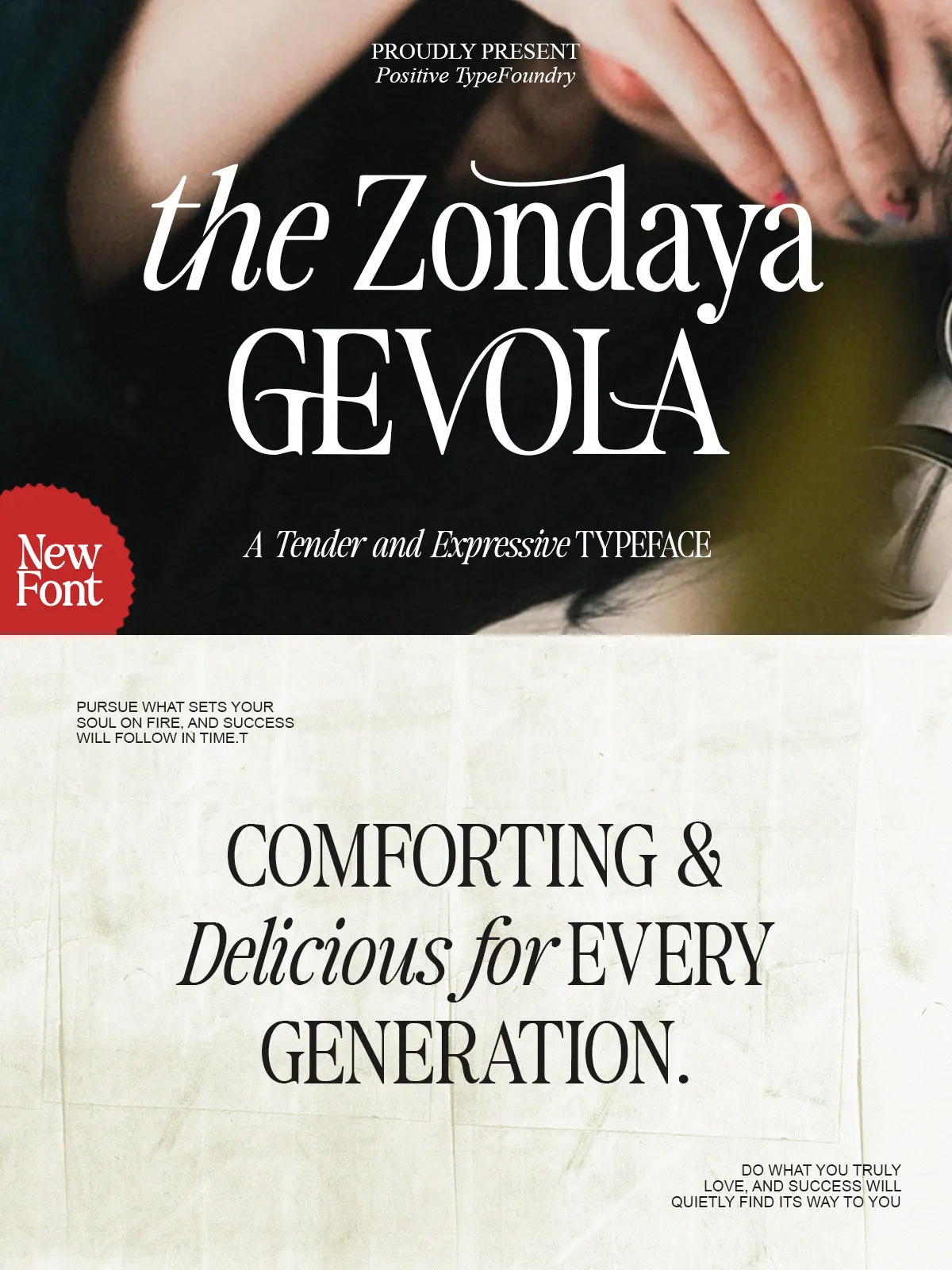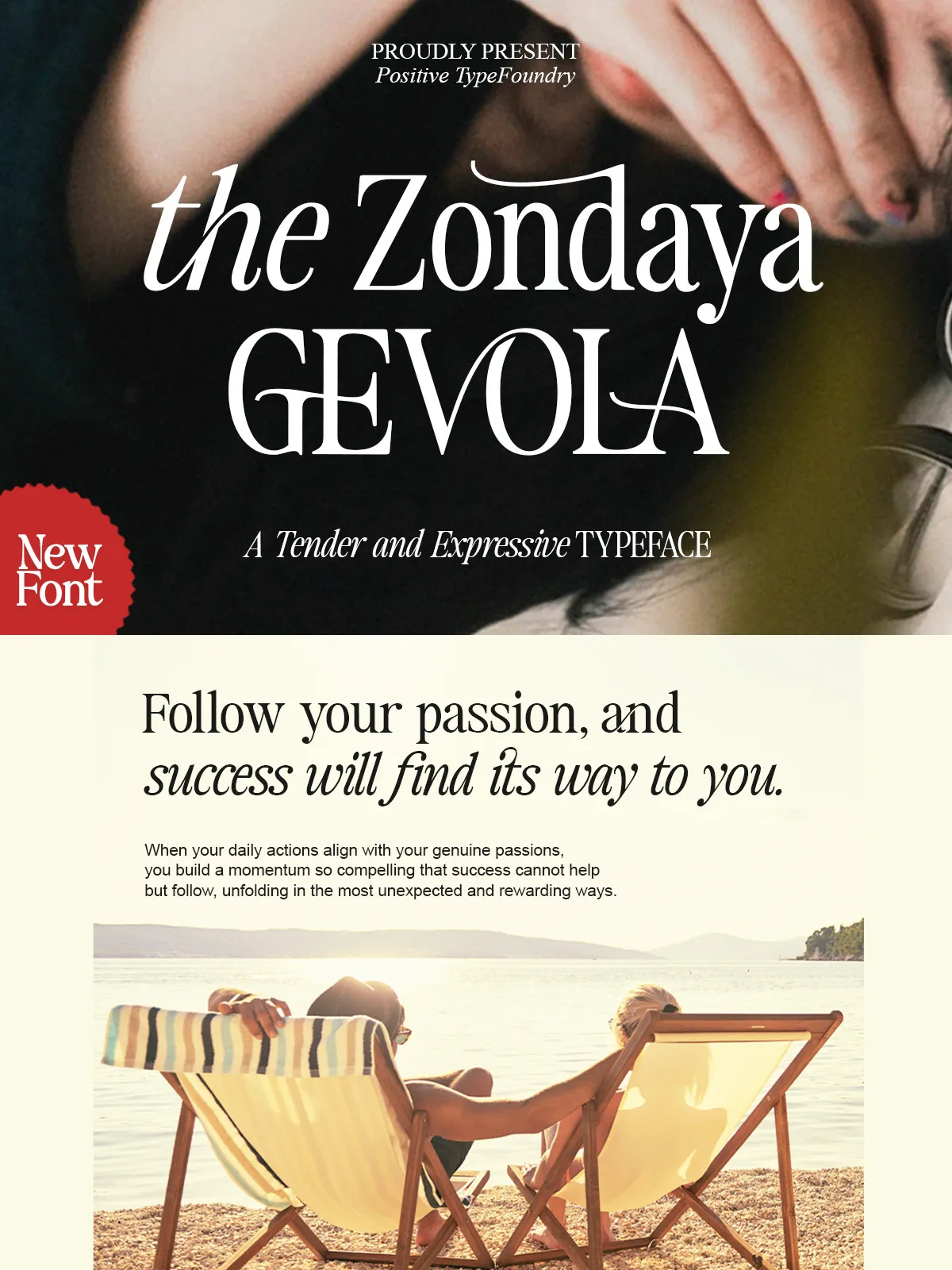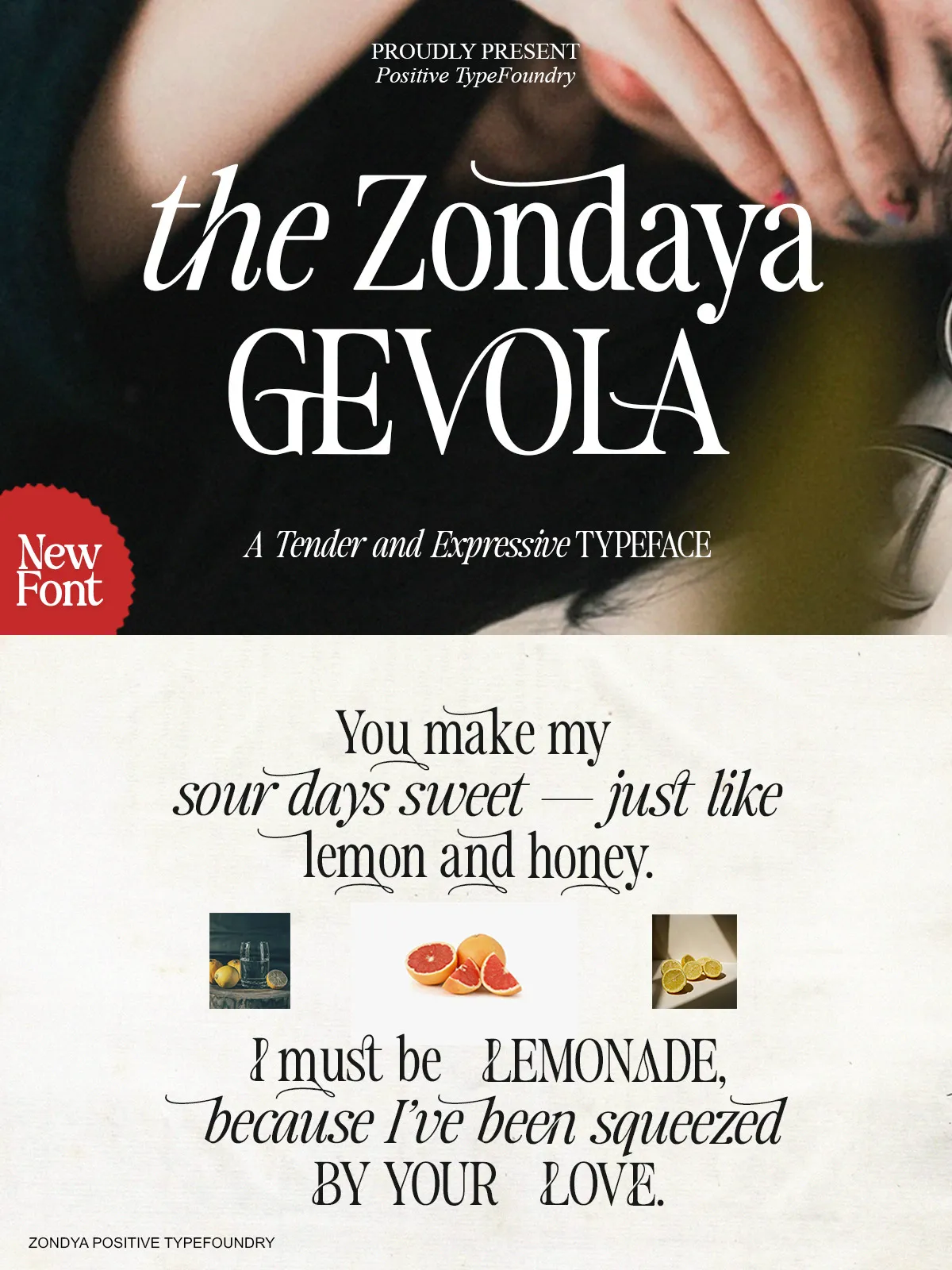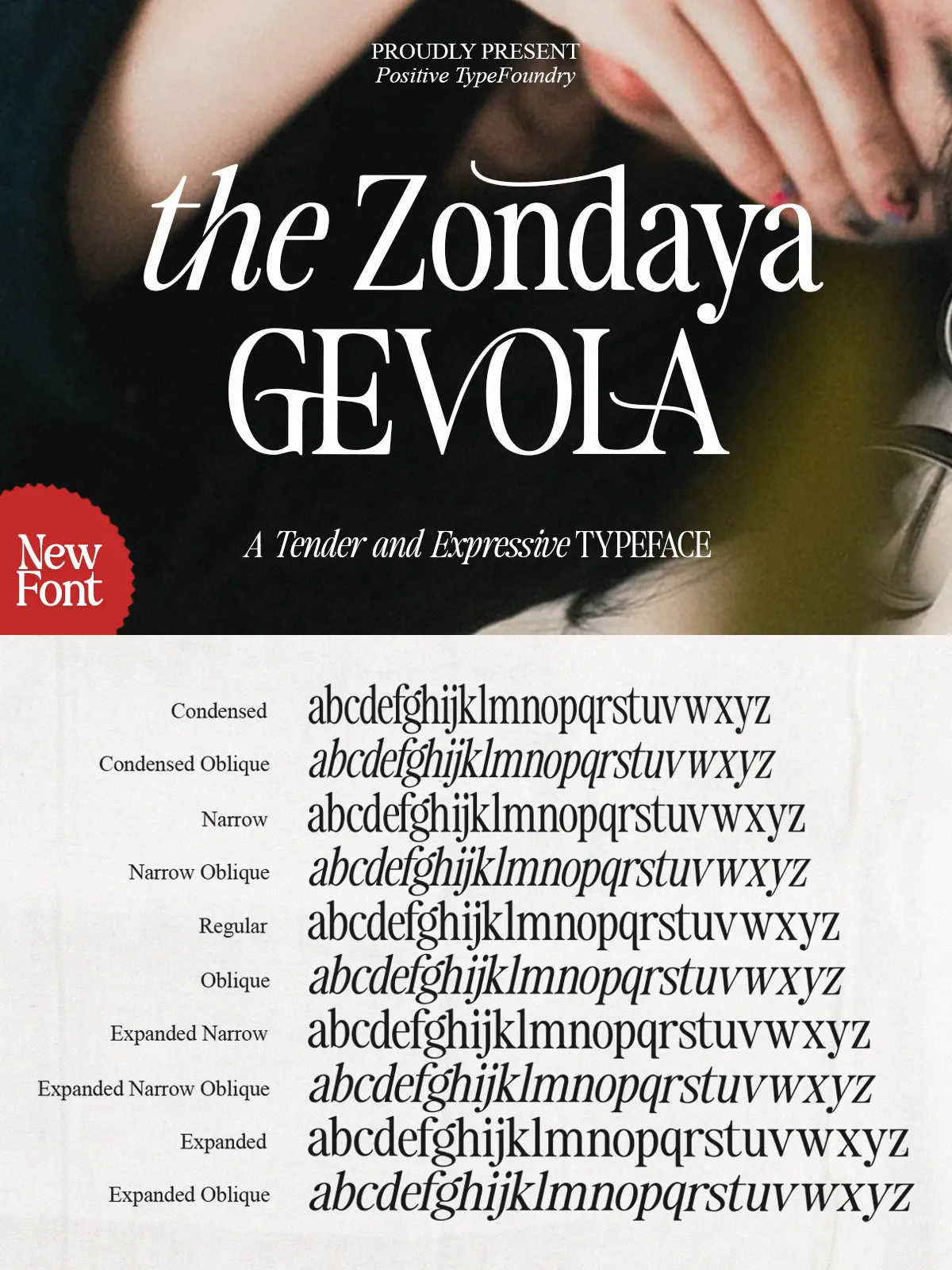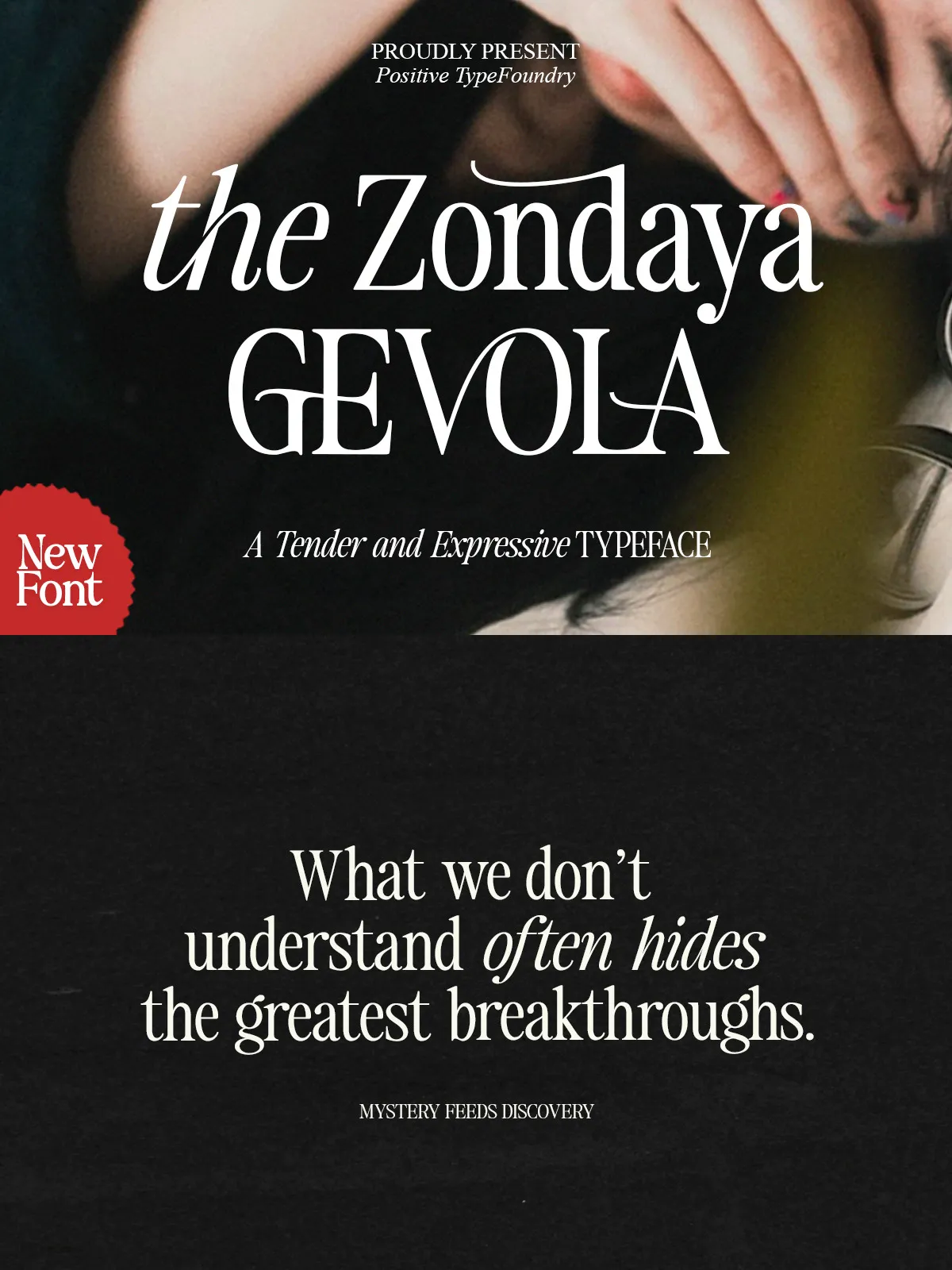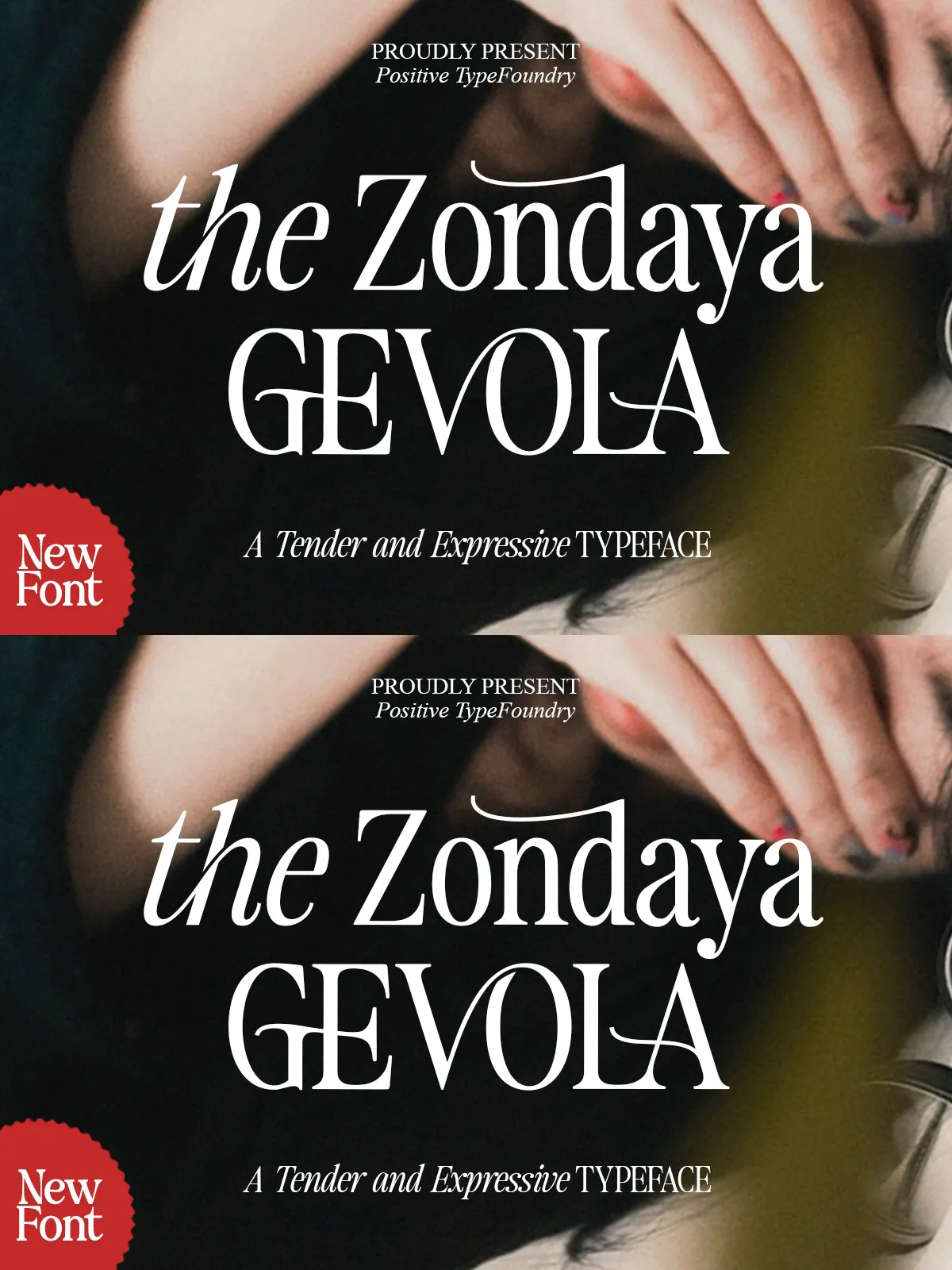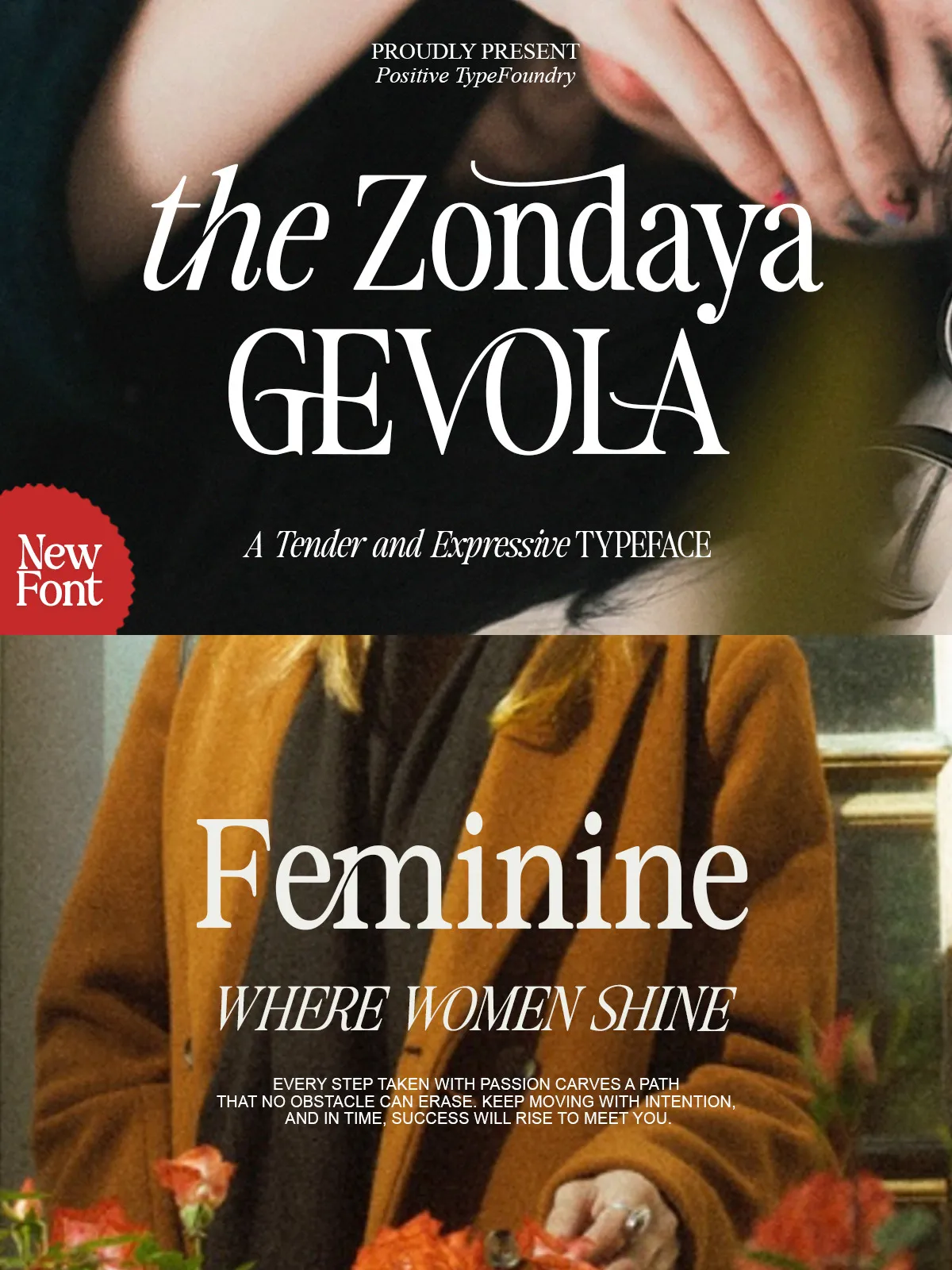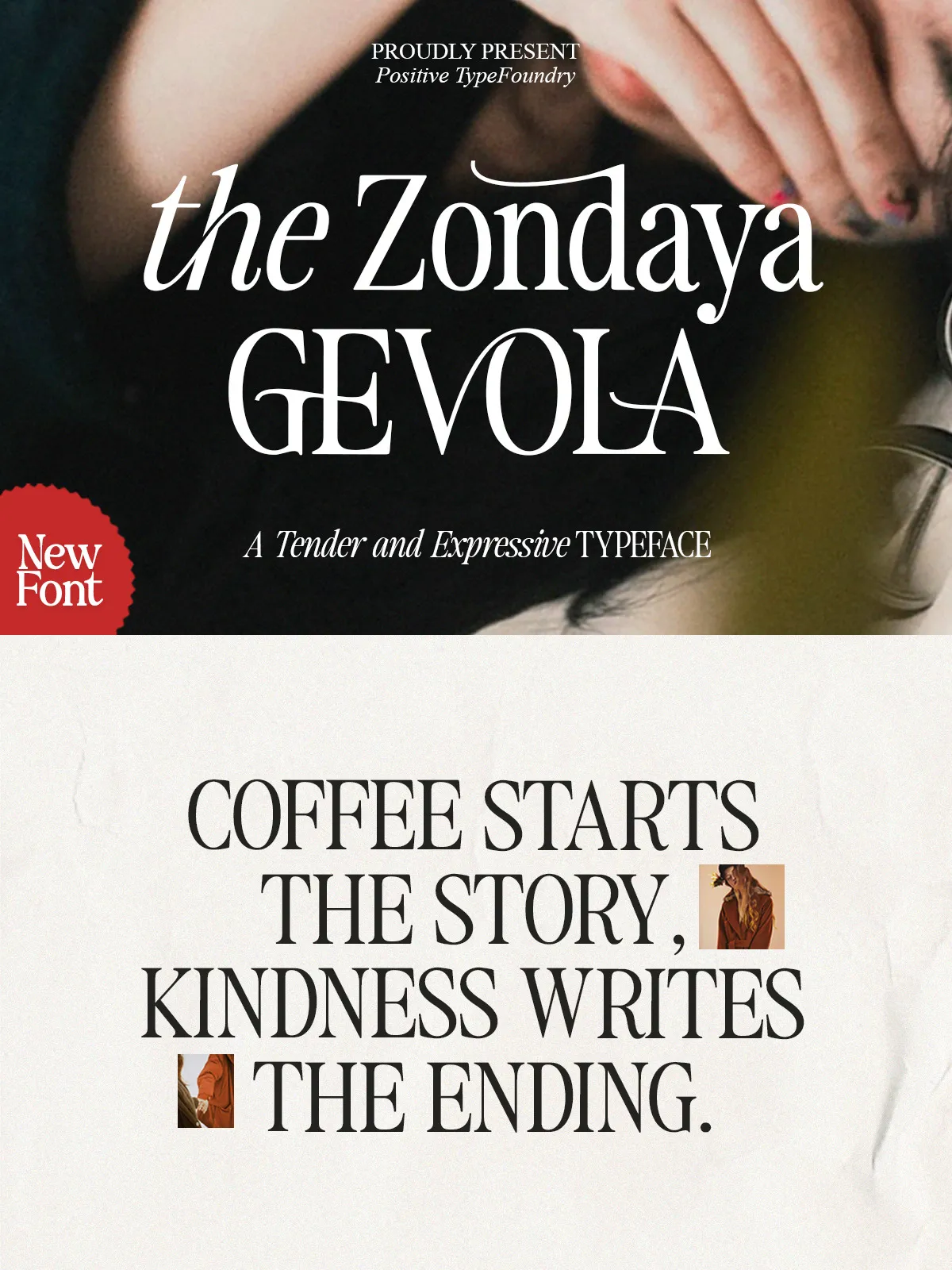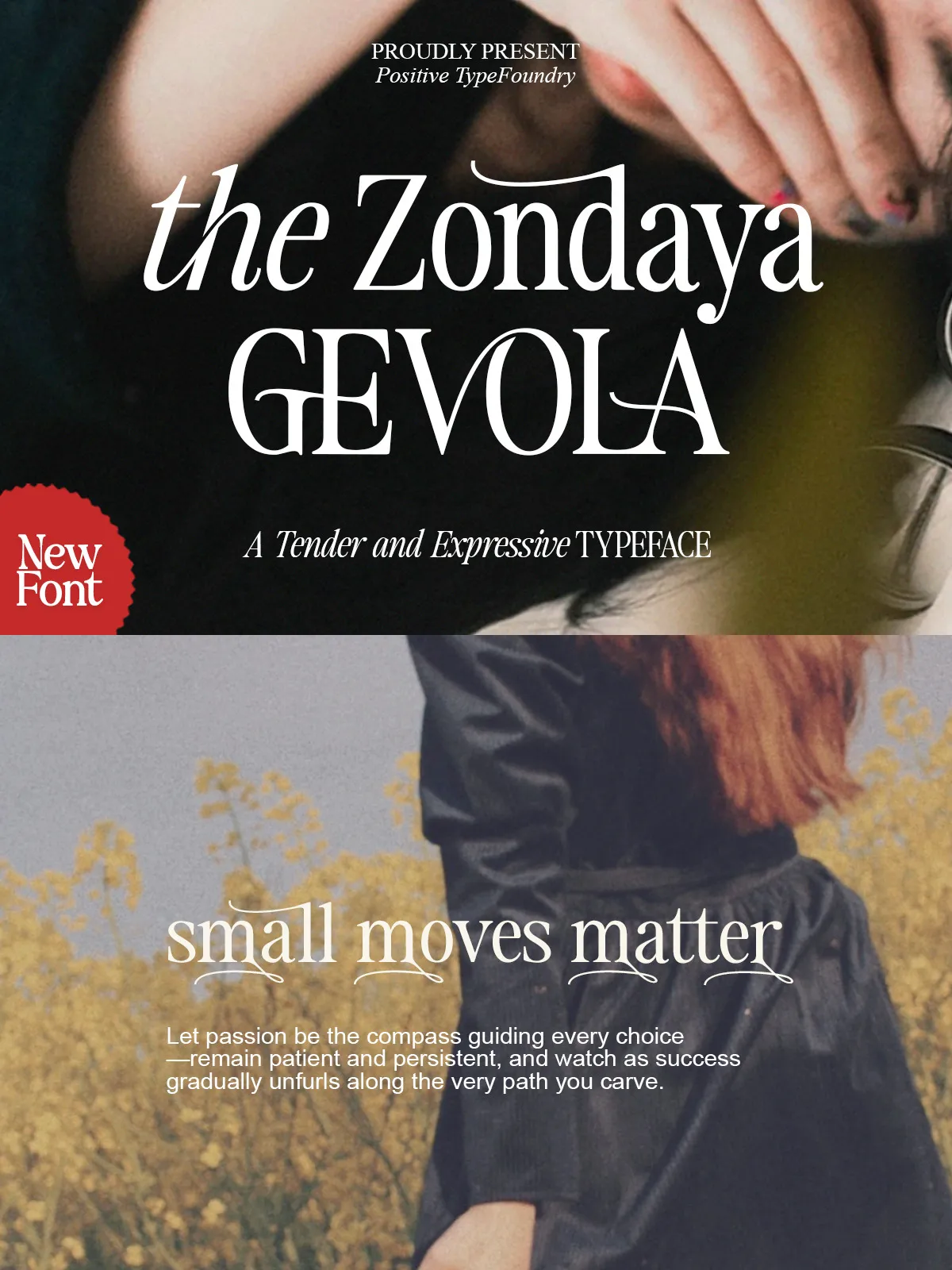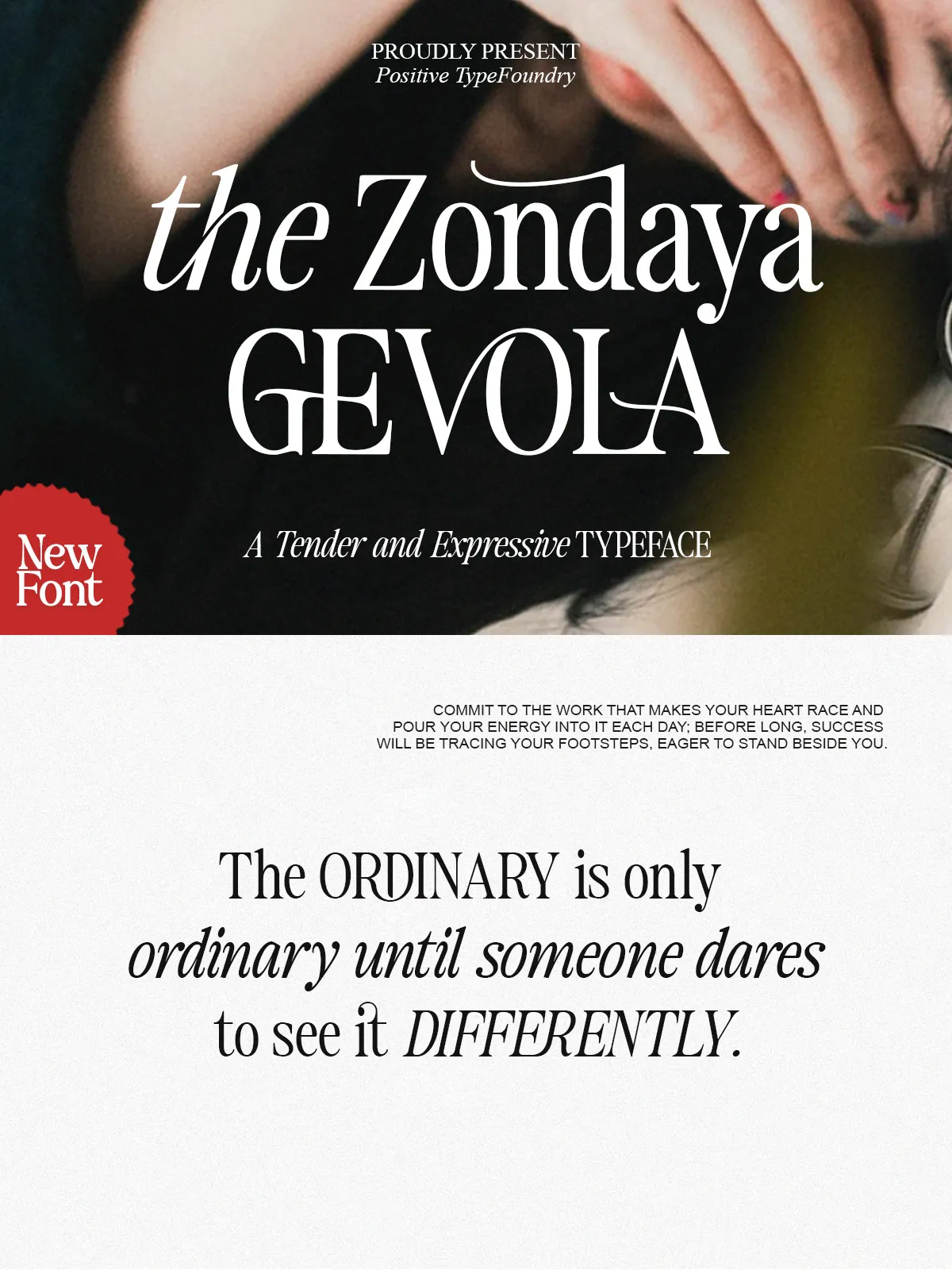
Meet Zondaya Gevola — a meticulously crafted serif typeface from Positive TypeFoundry that redefines expressive typography. This soft, flowing design merges timeless classicism with modern refinement, creating a visual language that feels both sophisticated and deeply personal. With its graceful serifs, fluid strokes, and hand-crafted letterforms, Zondaya Gevola brings character, emotion, and elegance to every word.
Designed for impact at large scales, this typeface thrives in display applications where every detail matters. Whether you’re setting a bold headline, crafting a luxury brand identity, designing an invitation, or enriching a high-end editorial spread, Zondaya Gevola ensures your message is not only seen — it’s felt.
Why Zondaya Gevola Elevates Your Design Projects
More than just a font, Zondaya Gevola is a creative partner. Its delicate yet confident structure allows it to convey a sense of femininity, grace, and artistic depth — all while maintaining readability and authority.
Artistic Details That Define the Experience
Every aspect of Zondaya Gevola has been designed with intention:
- Stylish decorative serifs that add visual rhythm and refinement
- Elegant swashes and alternate letterforms for sophisticated typographic variation
- Dynamic contrast between thick and thin strokes for expressive flow
- Refined spacing and balanced kerning for professional-grade typography
These features come together to create a typeface that’s not just beautiful — it’s expressive, versatile, and tailor-made for high-end creative work.
Powerful Font Variety for Maximum Flexibility
Zondaya Gevola isn’t just one font — it’s a full family of 30 distinct files, offering endless design possibilities. Explore the full range of weights and styles, including:
- Regular
- Italic
- Contrast (high stroke contrast for dramatic effect)
- Narrow (ideal for tight layouts)
- Extra Light and Bold variants for extended typographic hierarchy
Perfect for Every Project That Demands Soul and Style
Zondaya Gevola was born for projects that need more than just legibility — they need feeling.
Branding with Emotion
Create unforgettable brand identities for fashion, beauty, wedding services, or lifestyle products. Zondaya Gevola brings a romantic, feminine tone to logos, business cards, and brand guidelines — instantly setting your brand apart with elegance and authenticity.
Editorial & Print Design
Enhance magazines, catalogs, or book covers with headlines and captions that demand attention. The font’s expressive style adds narrative depth and visual rhythm, drawing readers in from the first line.
Product Packaging & Luxury Branding
Use Zondaya Gevola on high-end packaging for cosmetics, jewelry, or artisanal goods. Its soft, graceful presence communicates quality and care — subtly telling a story with every letter.
Invitations & Special Events
Perfect for weddings, baby showers, or anniversary celebrations, this typeface adds a touch of timeless romance. Pair it with delicate scripts or minimalist backgrounds for designs that feel both personal and polished.
Make Your Designs Speak Volumes
Zondaya Gevola isn’t just a font — it’s a voice. It’s for creators who don’t want to blend in, but who want their work to resonate with emotion, elegance, and intention.
Let it carry your message with grace. Let it shape your identity with authenticity. Let it define your project with a soft touch and bold presence.